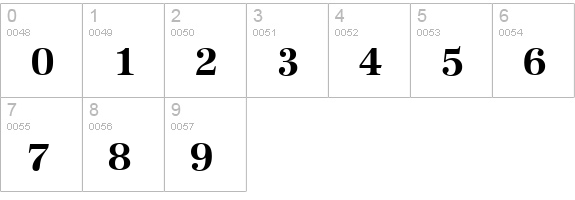
AntiquaStd-Bold is a strong, high-contrast variant in the AntiquaStd typeface family \xE2\x80\x94 well suited to headlines, attention-grabbing titles, and strong calls-to-action.
AntiquaStd-Bold is a classic and elegant font that exudes sophistication and timelessness. Its bold weight commands attention and adds a touch of authority to any design. The contrast between thick and thin strokes creates a striking visual impact, making it perfect for headlines, titles, and branding. The serifs add a traditional and refined look, while the overall design remains versatile and adaptable to various projects. What makes AntiquaStd-Bold even more appealing is that it is available for free download at FontsMarket.com. This means that you can easily access this high-quality font and use it in your personal and commercial projects without any cost. Whether you're working on a poster, logo, website, or any other design endeavor, AntiquaStd-Bold is a reliable choice that will elevate your work with its timeless charm and professional aesthetic.